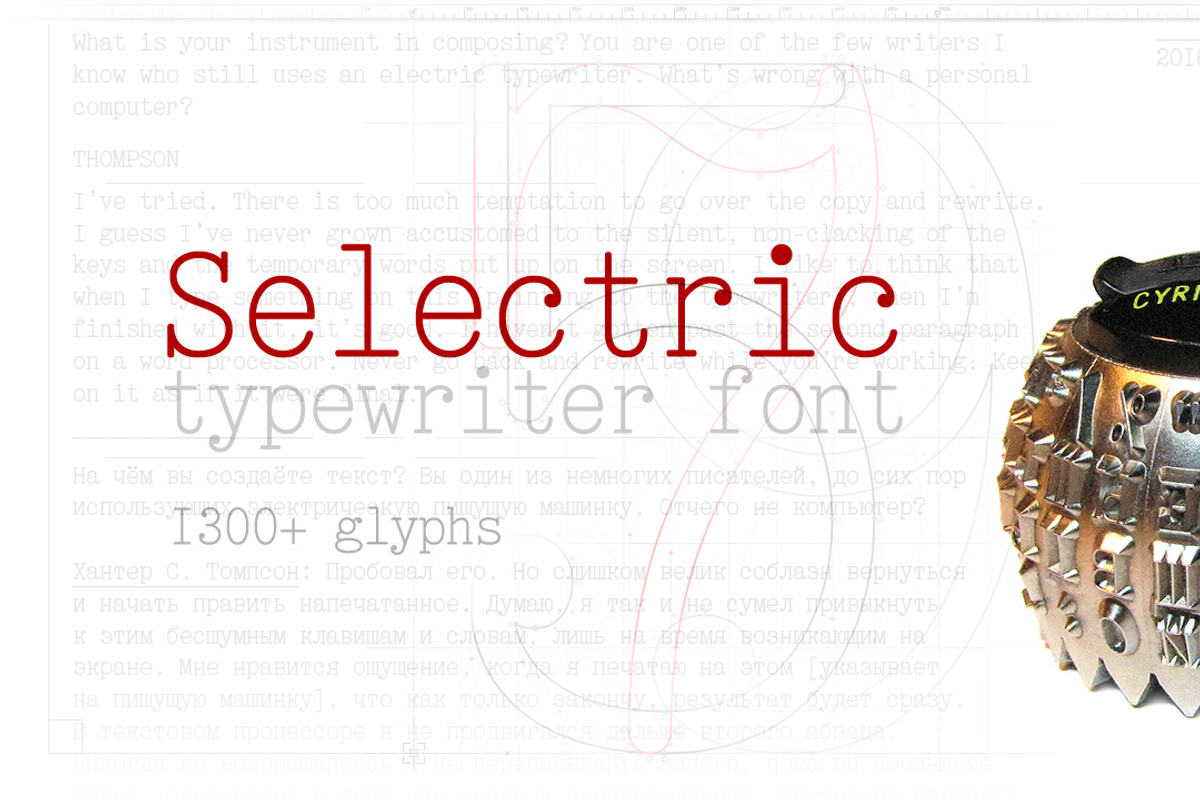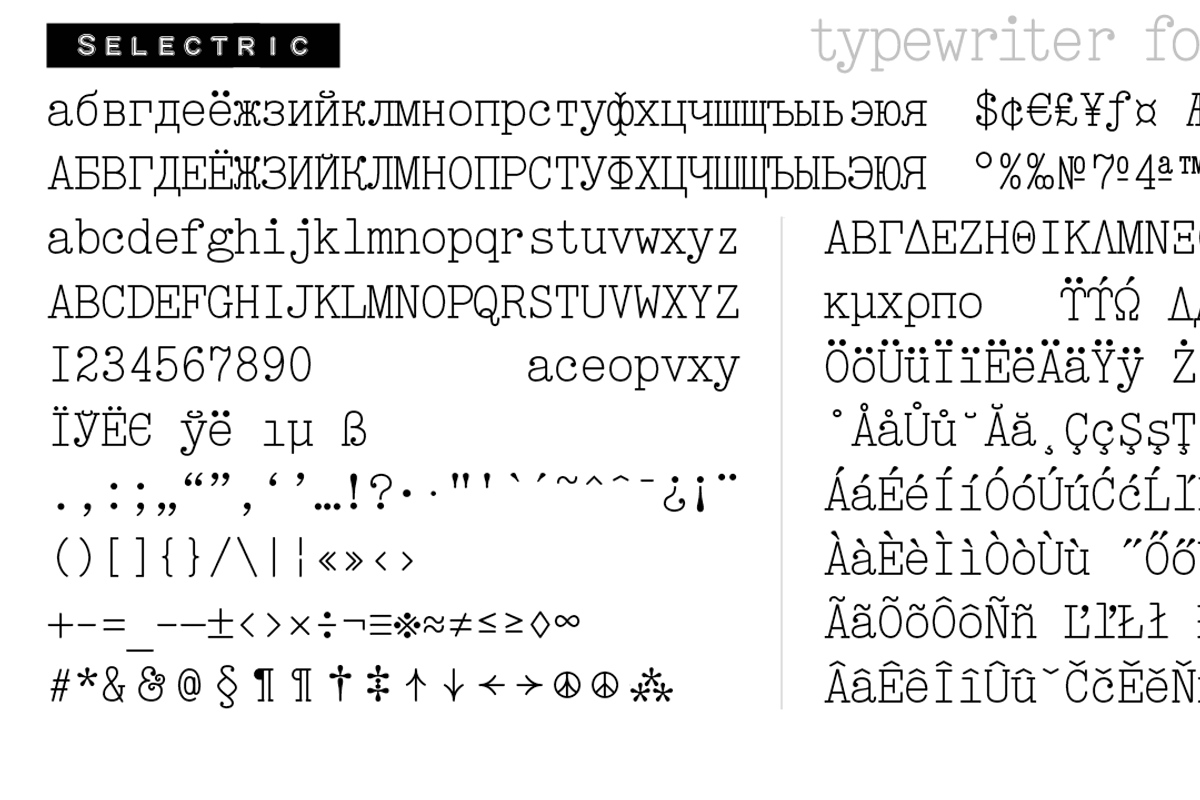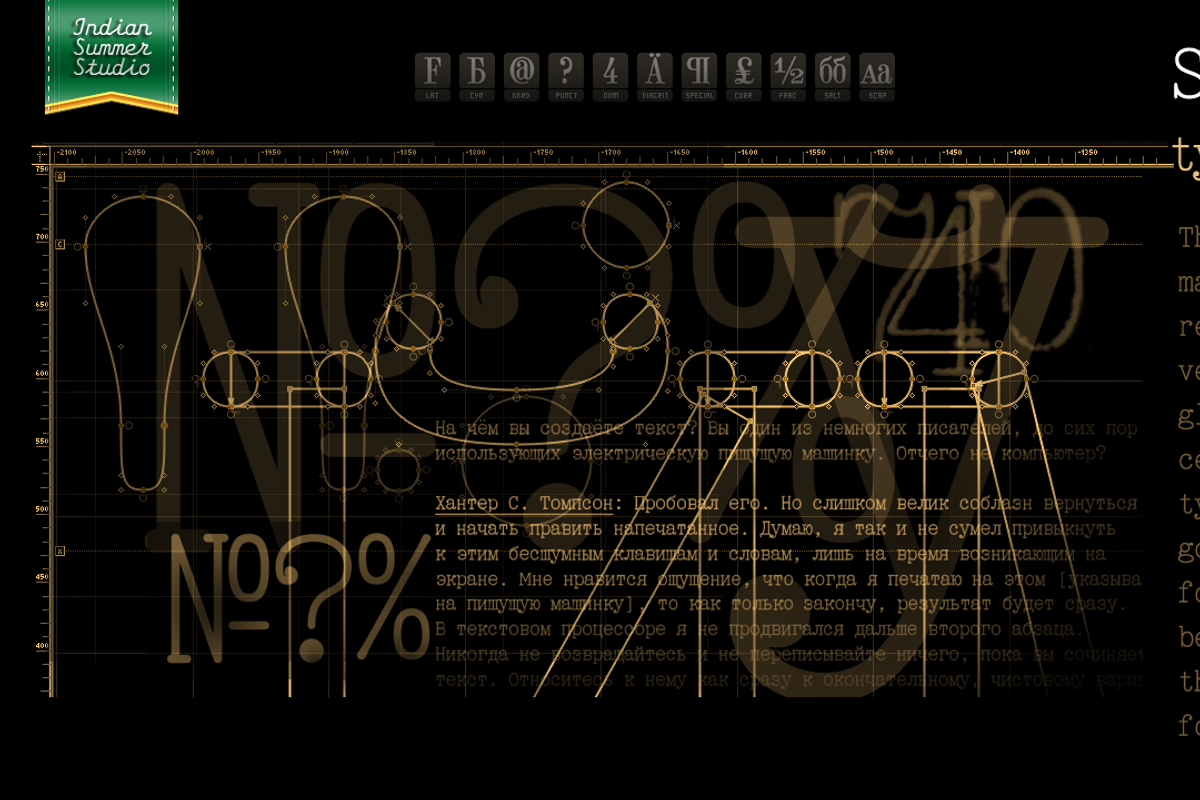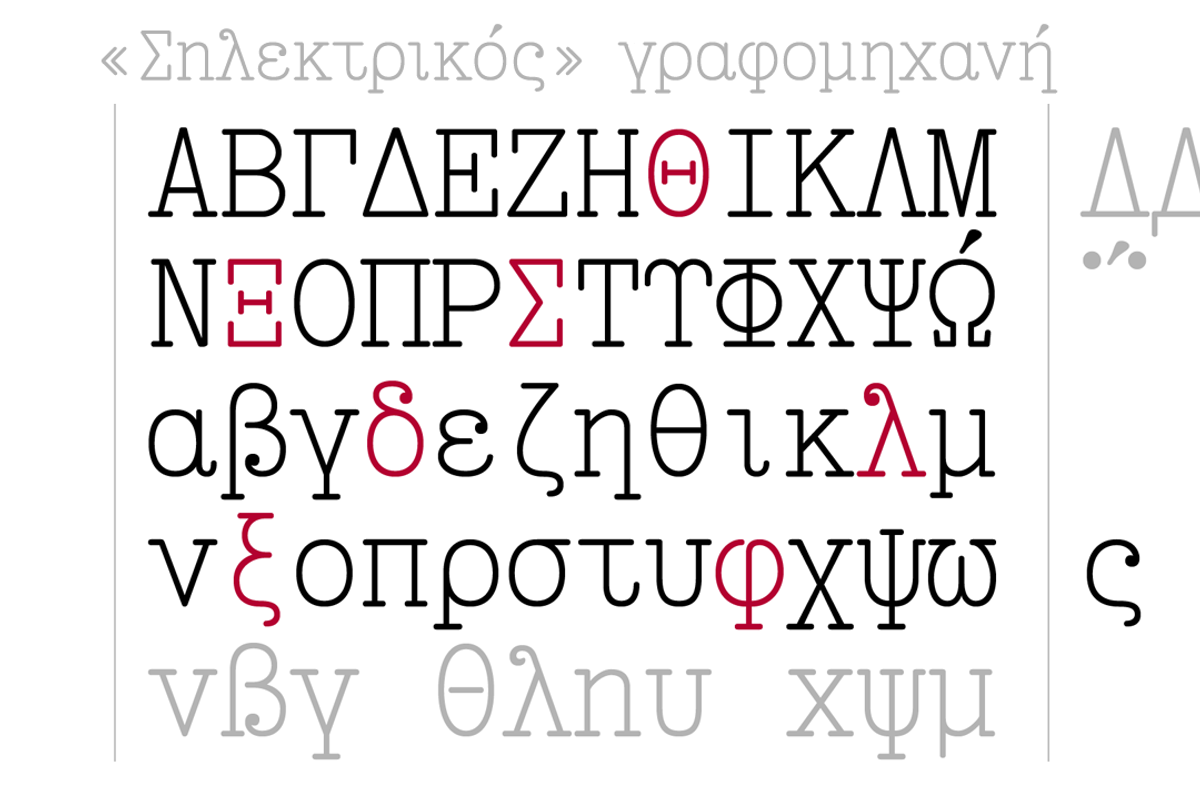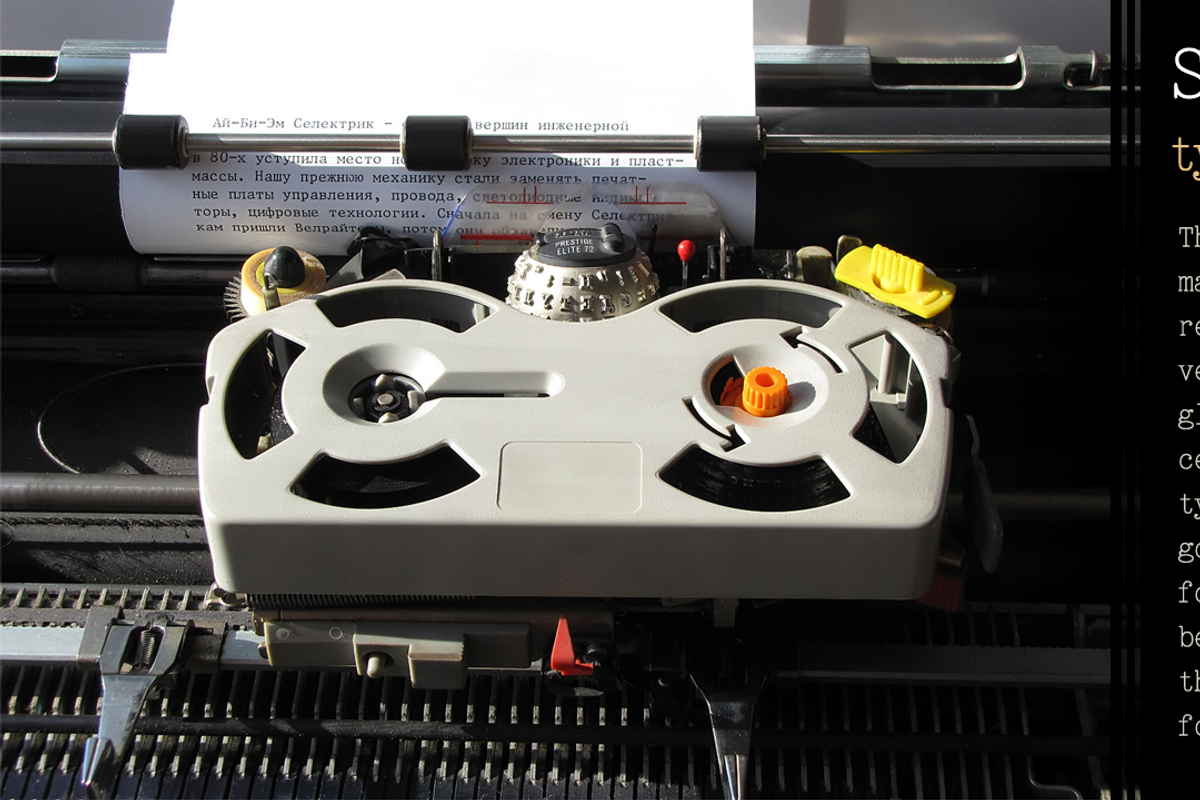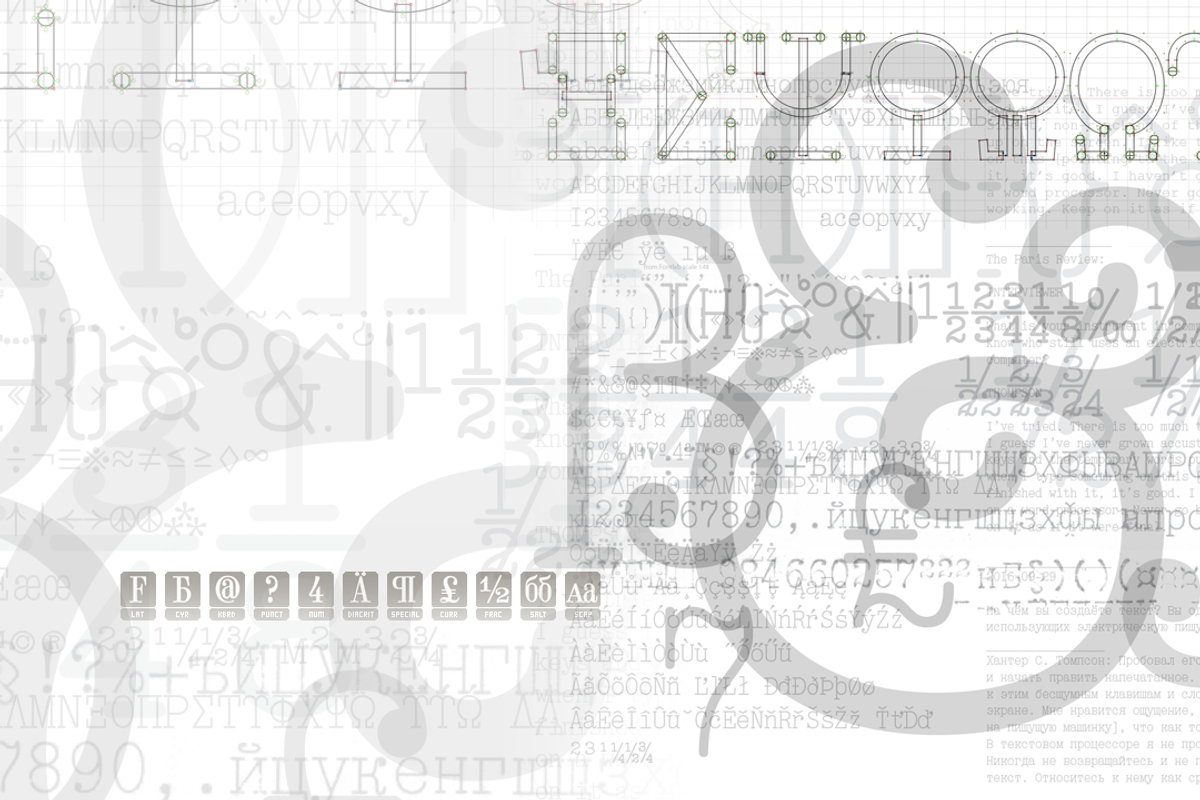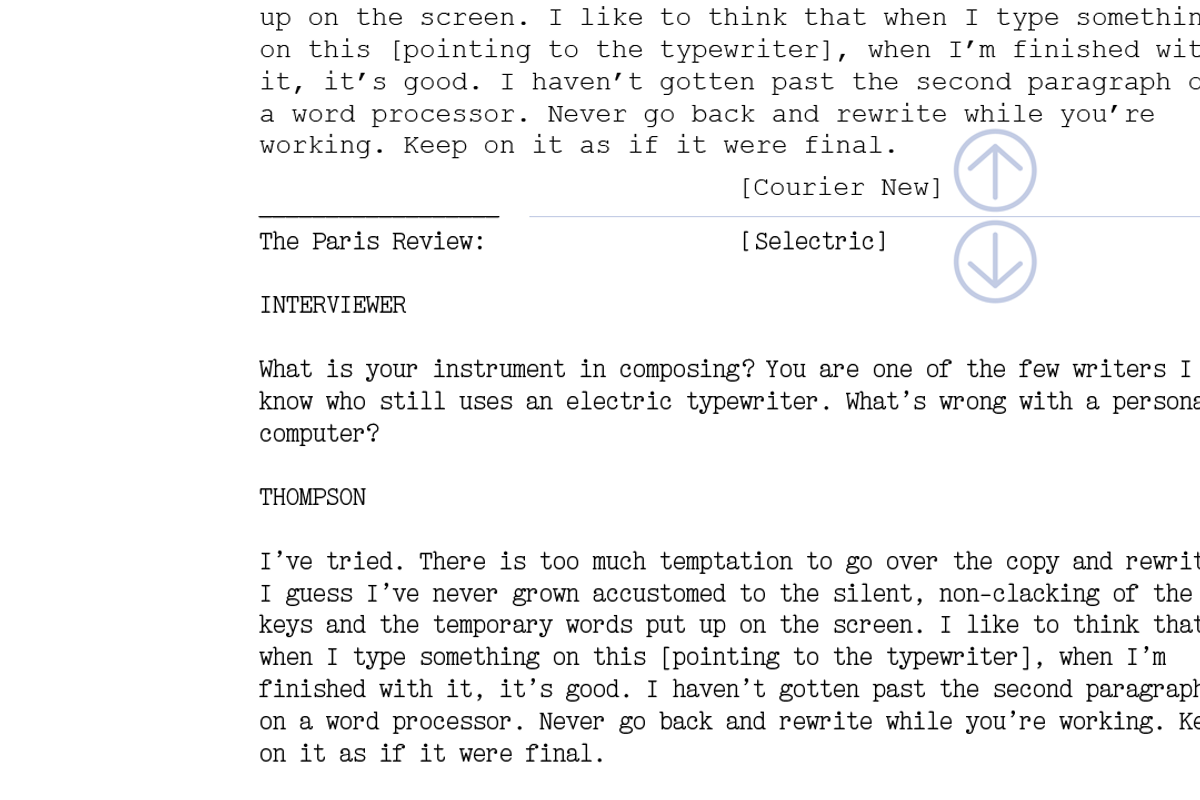
Selectric
Selectric typewriter font.
The part of the large, many years project on revival and further development (over 1000 glyphs) of the 20th century’s most famous typewriter Selectric golfball fonts, lost for many decades, not being created since then in digital vector form.